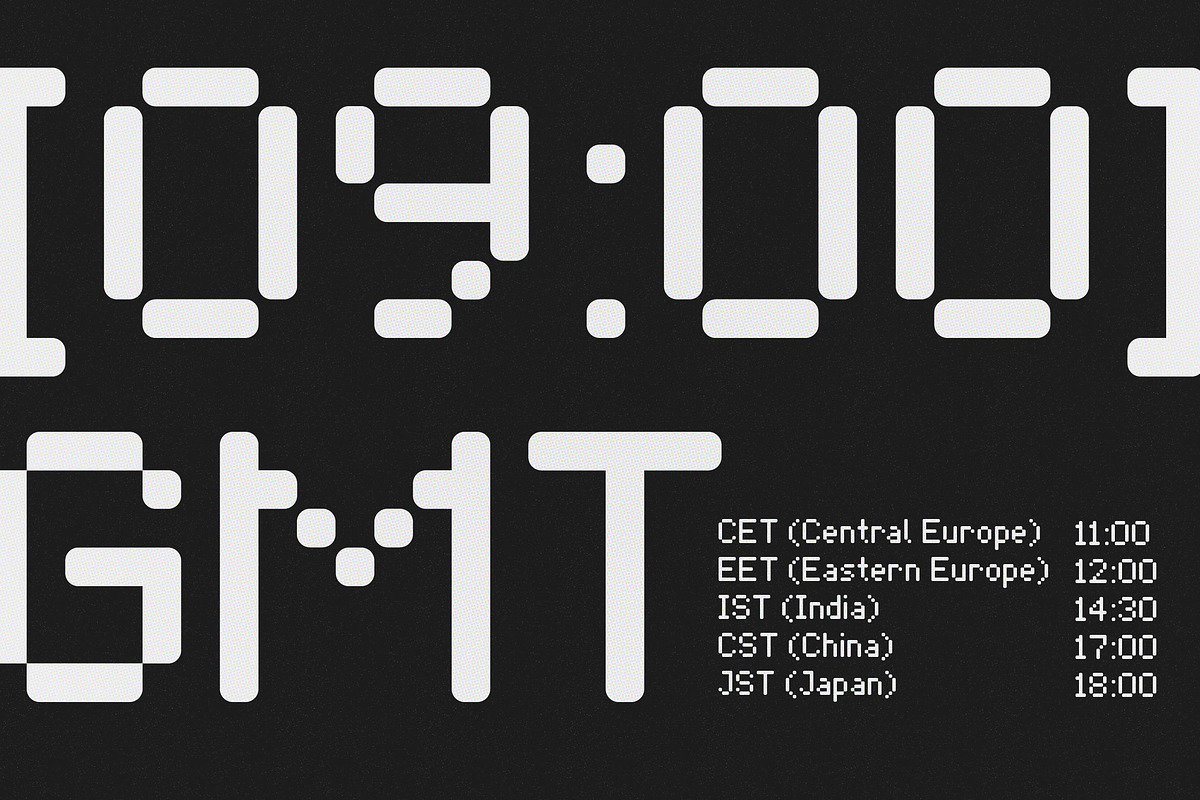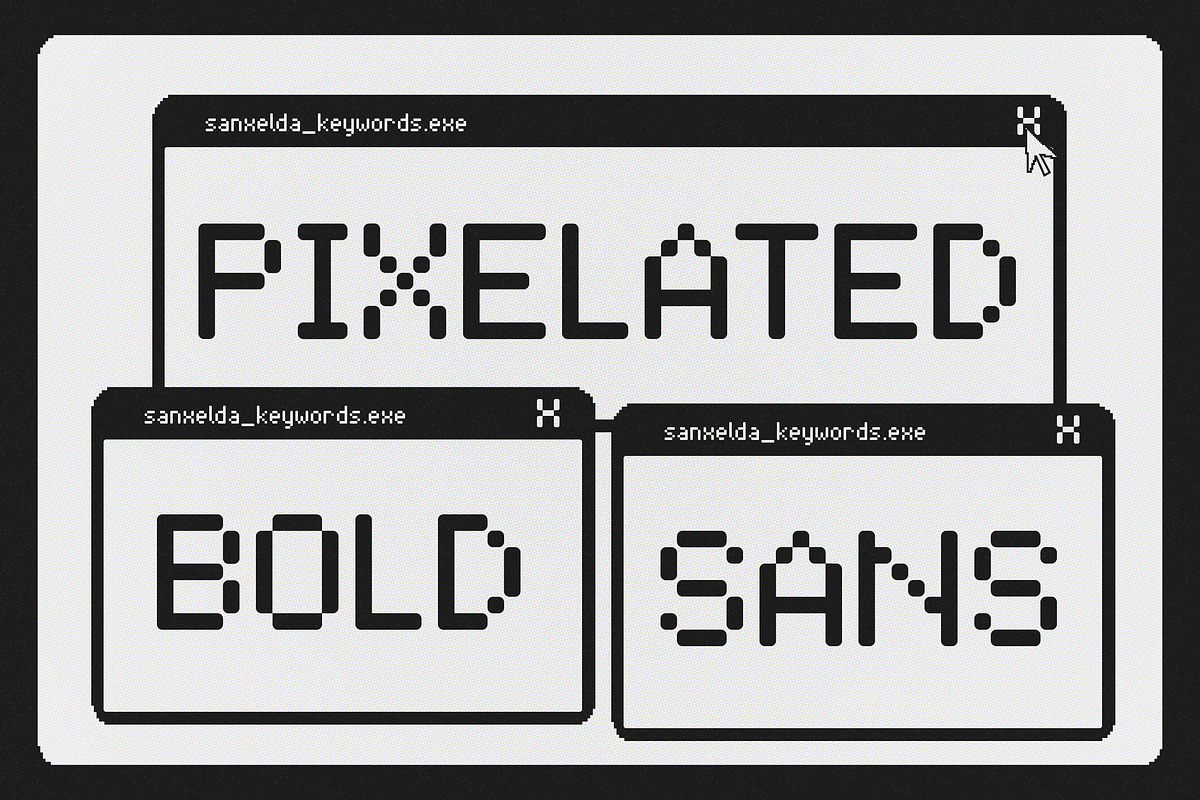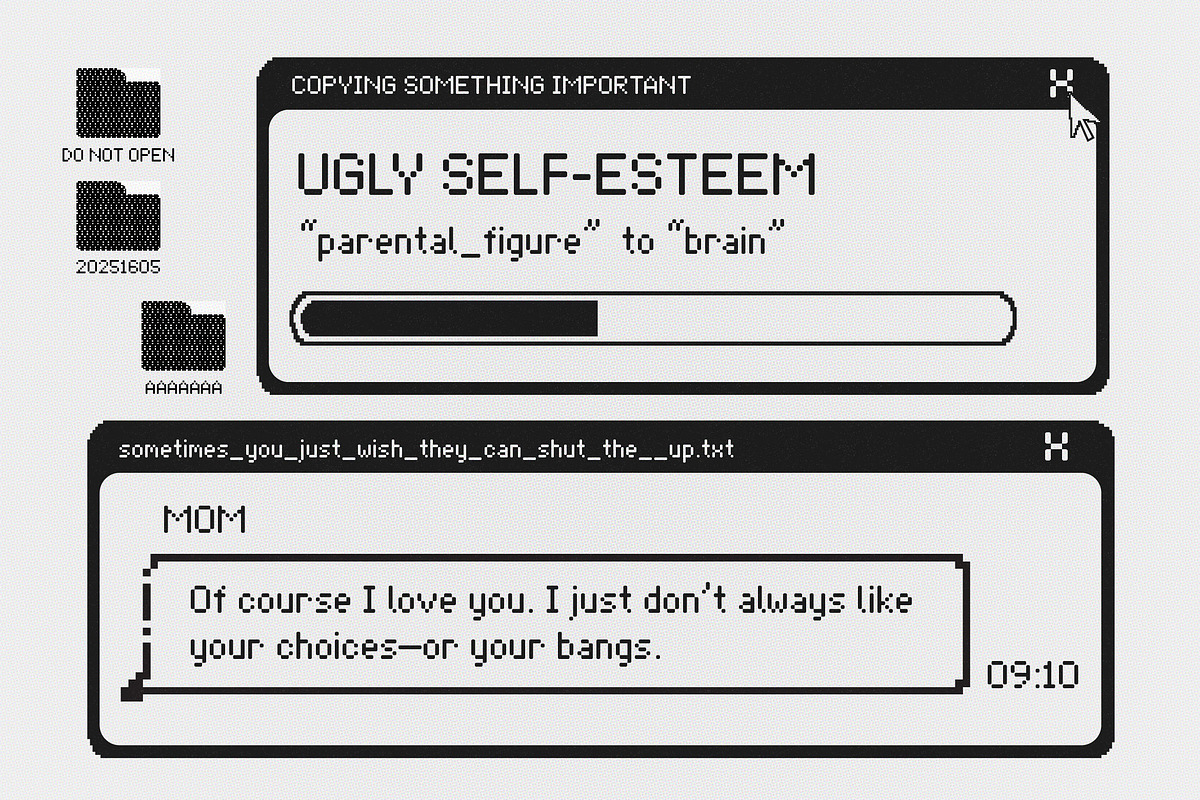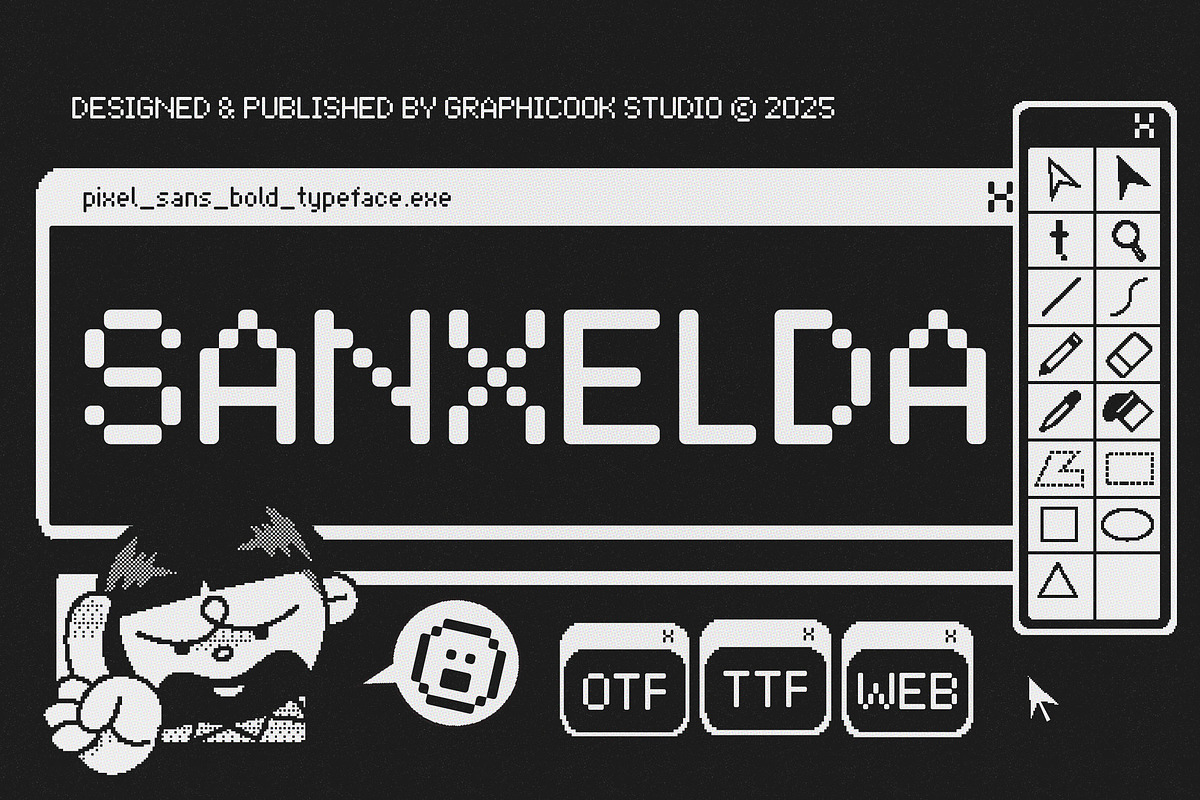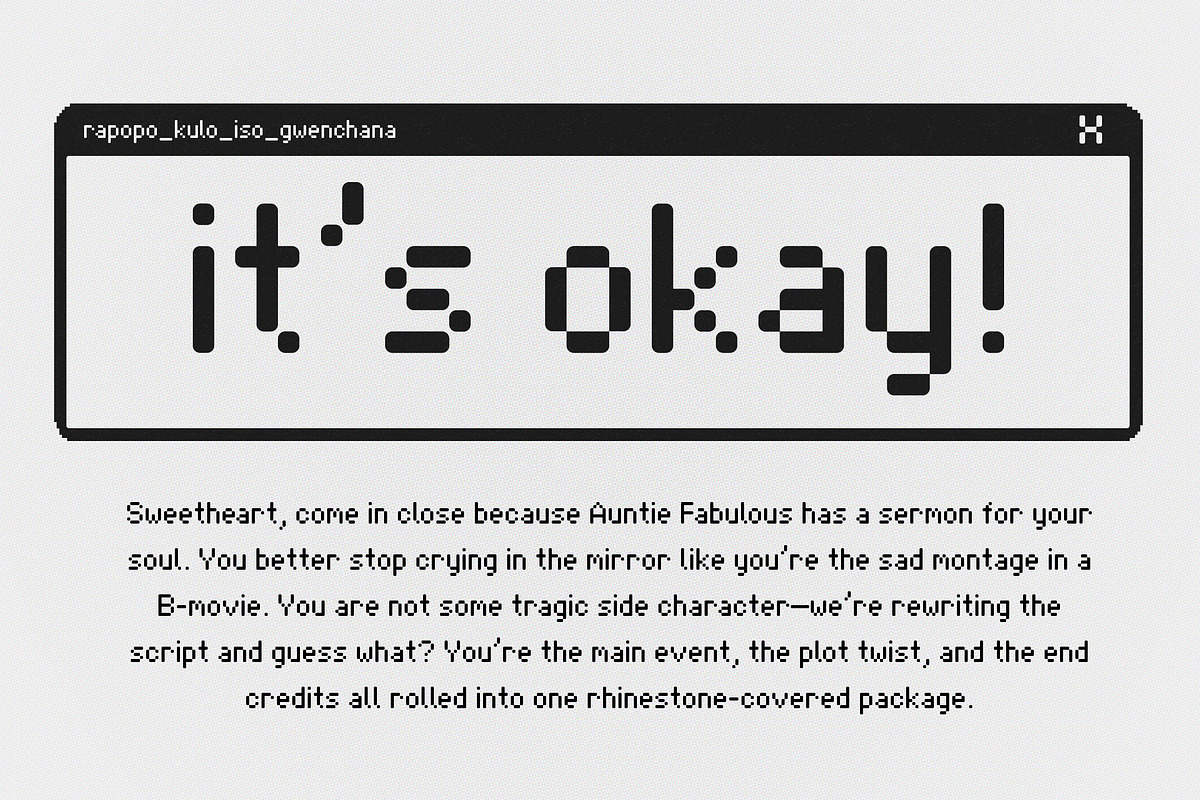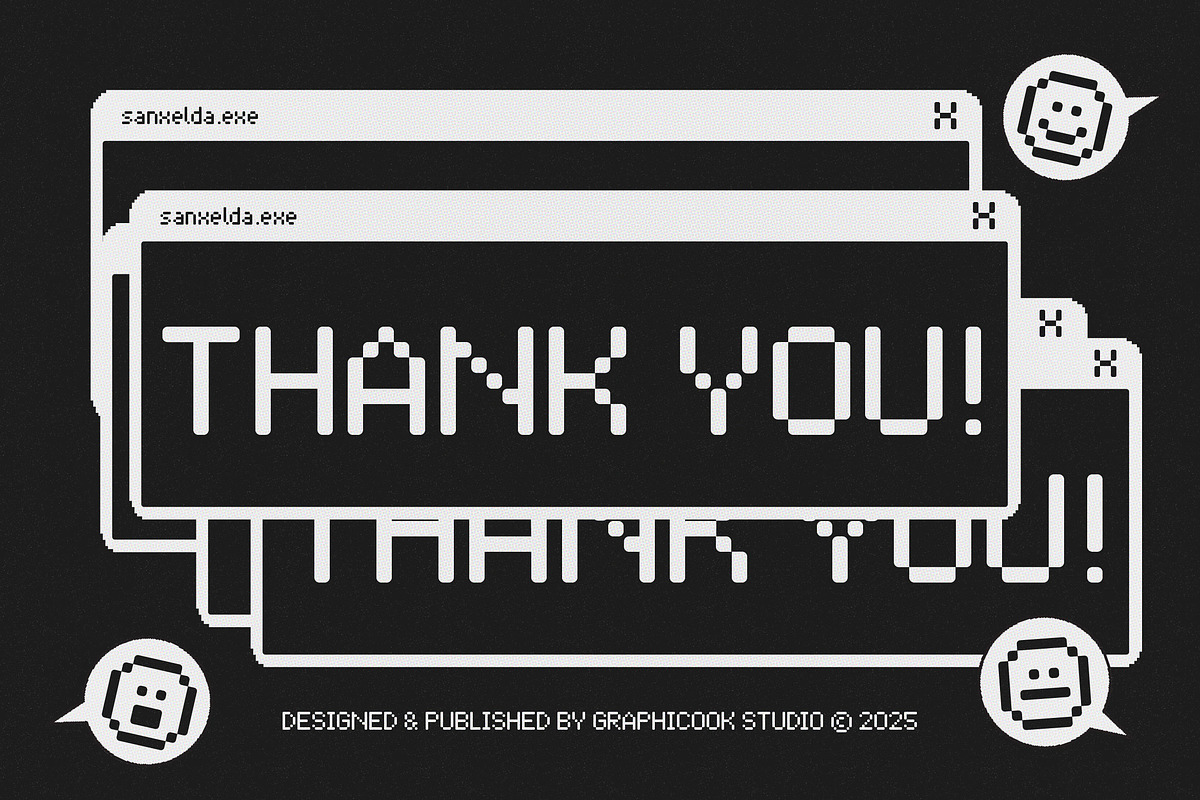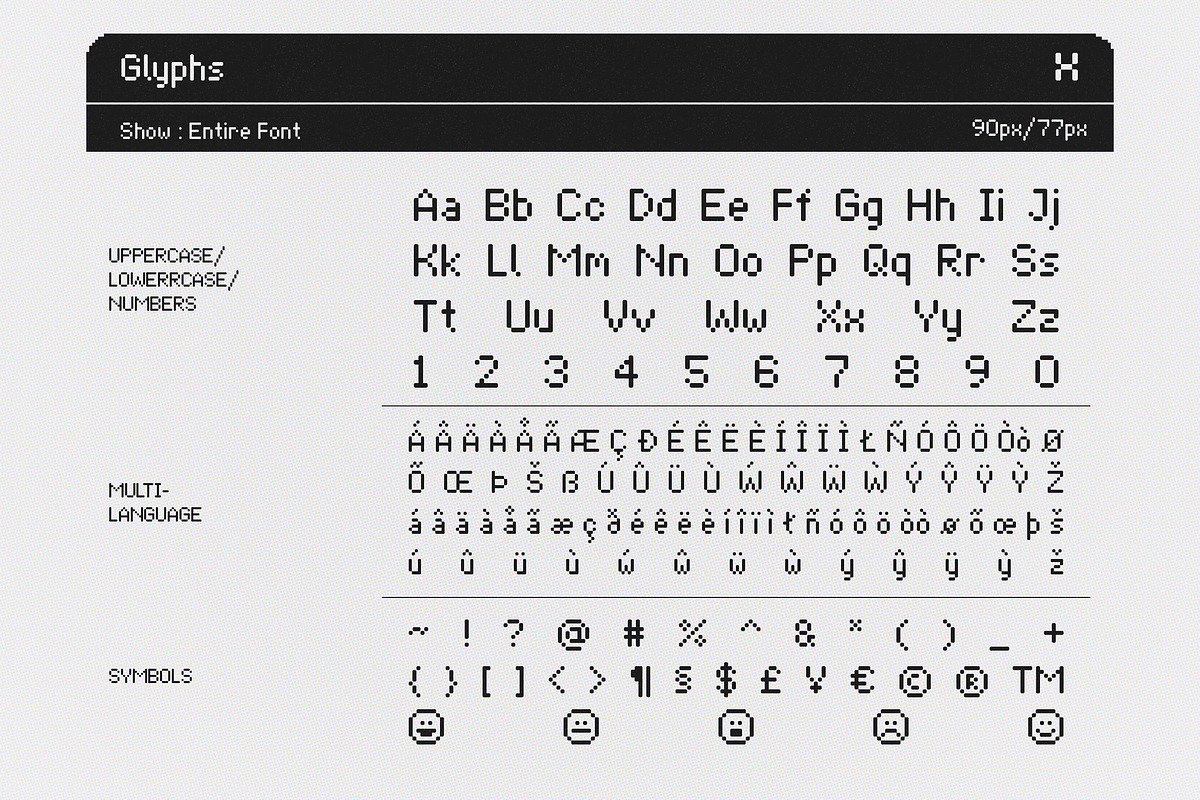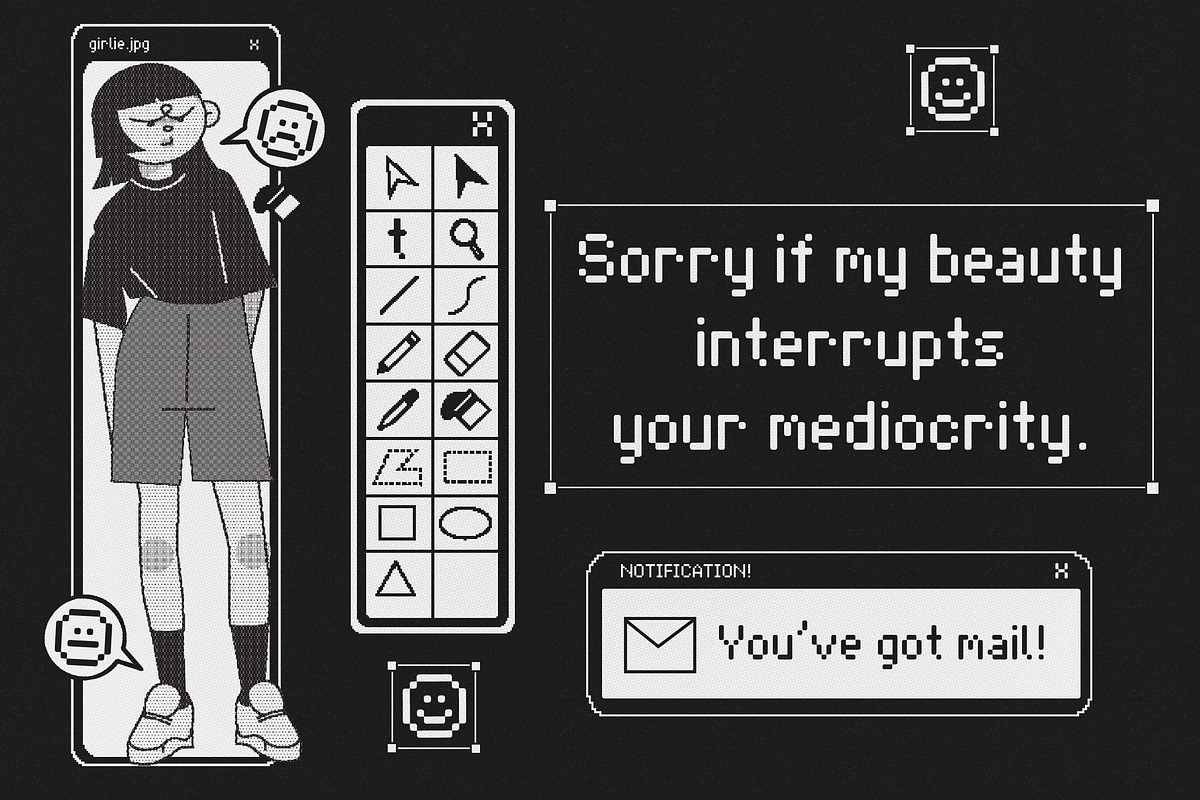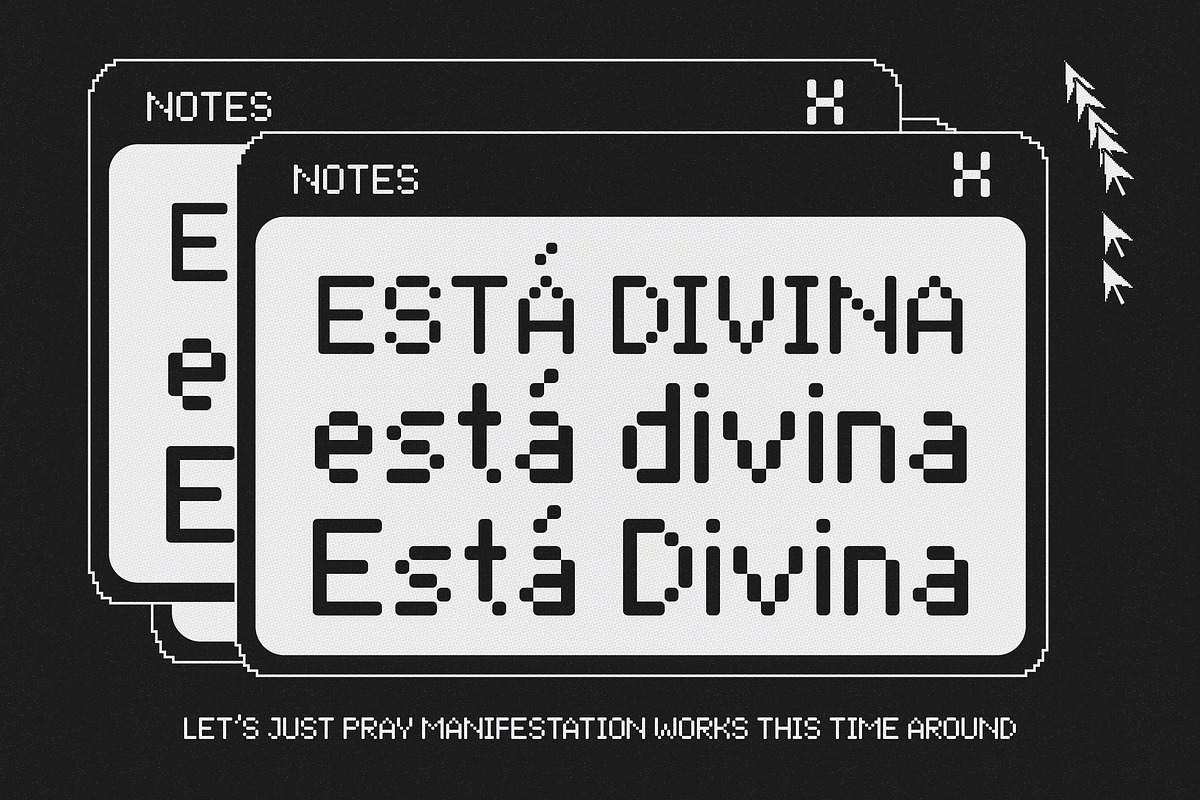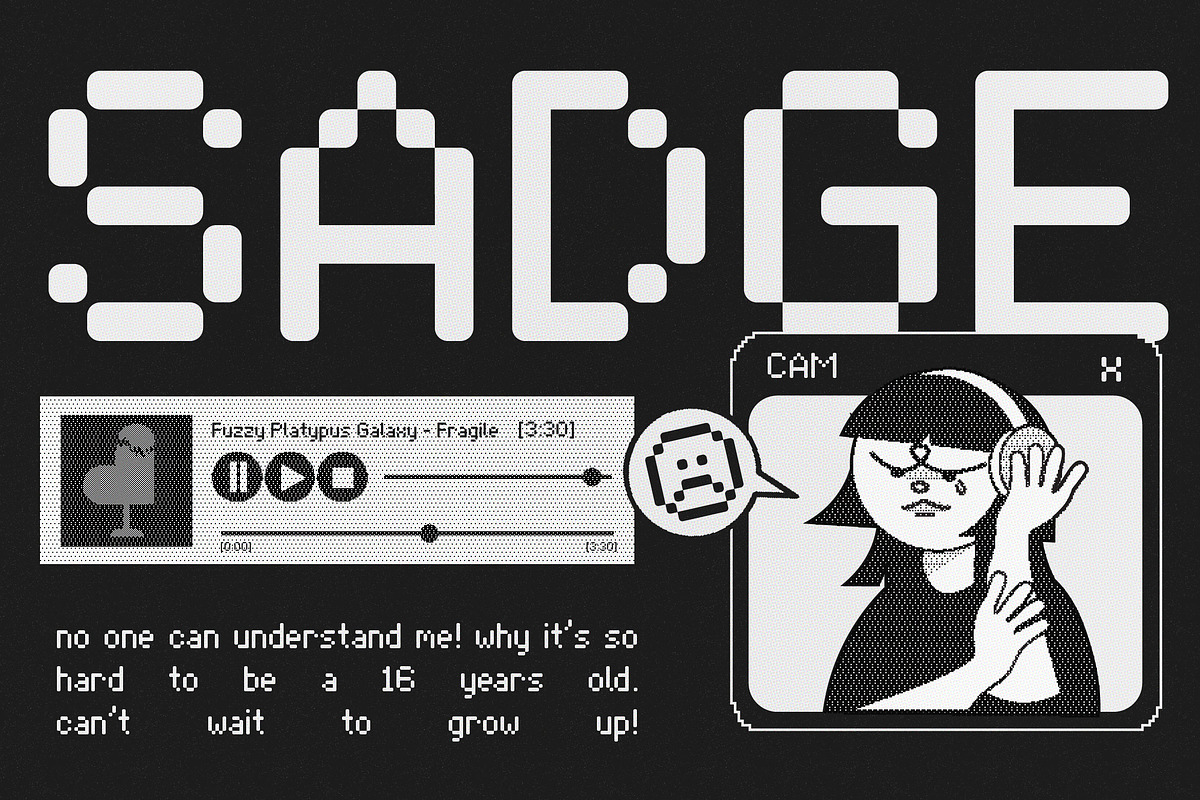
Sanxelda
Sanxelda is an experimental pixel-style font that evokes a digital, low-resolution screen effect. Perfect for games, tech visuals, or cyberpunk-themed designs.
It is perfect for headlines, logotypes, magazines, packaging, quotes, movies, games, cover albums, book covers, and flyers, it's a perfect solution for creating eye-catching designs that stand out in any context.